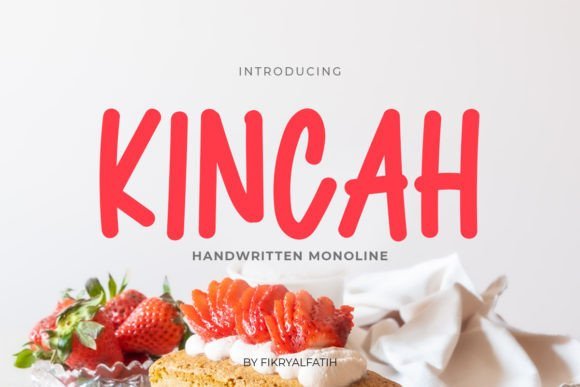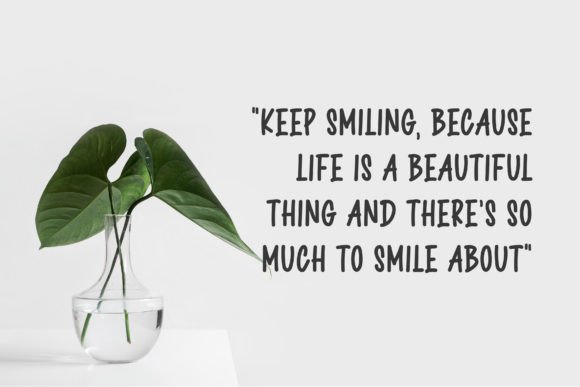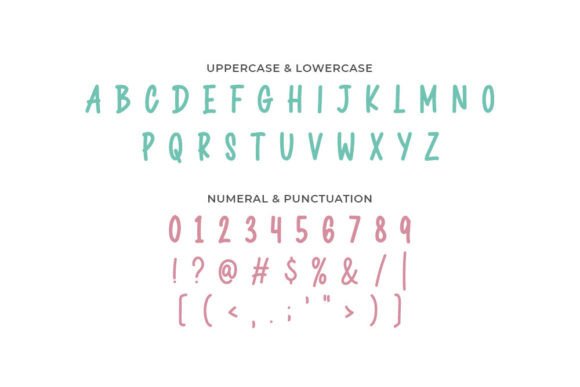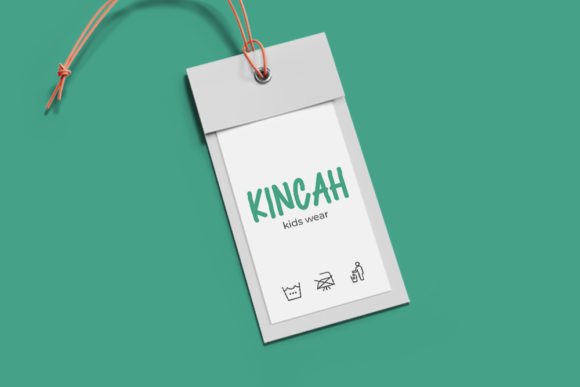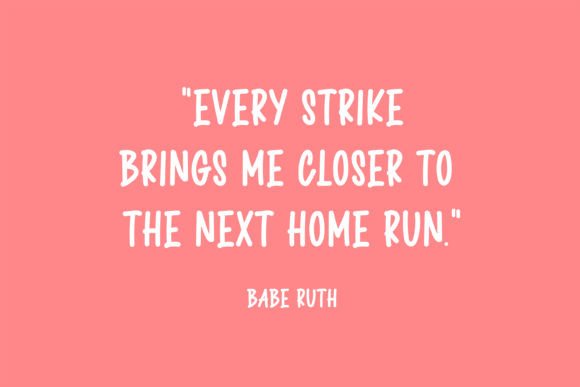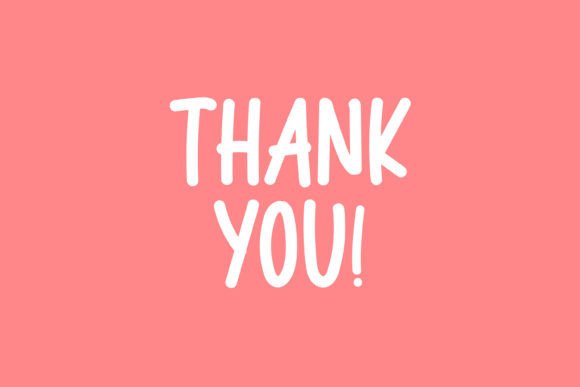
Unleash Your Creativity with the Kincah Font
Have you ever been browsing through a vintage bookstore and stumbled upon an old, handwritten journal? The way the words danced across the page, with each letter uniquely crafted by hand, left you in awe. That’s the magic of handwritten fonts, and it’s exactly what the Kincah Font brings to the table.
The Kincah Font is a beautifully crafted, handwritten monoline font that combines fun and playful glyphs with a luxurious hand-drawn effect. This font is perfect for adding a touch of personality to your designs, from quotes and logo designs to brand image and product packaging.
For designers, the Kincah Font is a valuable addition to their toolkit. Its versatility and unique charm make it an ideal choice for creating eye-catching designs that stand out from the crowd.
Kincah Font Key Features
- Character Set: The font includes a comprehensive character set, covering multiple languages, including Latin, Cyrillic, and Greek scripts.
- Unique Characteristics: Kincah Font features a distinctive, hand-drawn aesthetic, with subtle texture and imperfections that give it a warm, human touch.
- Font Weight and Style: The font includes a range of weights, from Light to Bold, as well as italic and oblique styles, allowing for a high degree of flexibility and customization.
Kincah Font Review
As a designer, I was excited to dive into the Kincah font and see what it had to offer. Here’s my honest take on this font.
- Unique and Creative: Kincah font has a unique and creative feel to it, making it perfect for projects that need a touch of personality.
- Highly Legible: This font is surprisingly legible, even at smaller font sizes, making it ideal for body text and paragraphs.
- Great for Display Text: Kincah font shines when used for display text, headlines, and titles, adding a touch of sophistication to any design.
- Limited Versatility: While Kincah font is great for display text, it may not be the best choice for body text in certain contexts, such as formal or technical writing.
- Lack of Consistency: The font’s irregularities can sometimes make it look inconsistent, especially when used for large blocks of text.
Kincah font is a solid choice for designers looking for a unique and creative font. While it may have some limitations, its strengths far outweigh its weaknesses. With careful use, Kincah font can add a touch of sophistication and personality to any design.
Alternatives to Kincah Font for Designers
Montserrat is a sans-serif typeface that is highly legible and versatile. It is ideal for use in digital media, such as websites, mobile apps, and video games. Montserrat is a great alternative to Kincah Font because it has a similar geometric feel, but with a more modern and sleek appearance.
Open Sans is a clean and modern sans-serif typeface that is highly legible and versatile. It is ideal for use in digital media, such as websites, mobile apps, and video games. Open Sans is a great alternative to Kincah Font because it has a similar friendly and approachable feel, but with a more refined and sophisticated appearance.
Avenir is a geometric sans-serif typeface that is highly legible and versatile. It is ideal for use in digital media, such as websites, mobile apps, and video games. Avenir is a great alternative to Kincah Font because it has a similar modern and sleek appearance, but with a more angular and geometric feel.
Inter is a modern sans-serif typeface that is highly legible and versatile. It is ideal for use in digital media, such as websites, mobile apps, and video games. Inter is a great alternative to Kincah Font because it has a similar clean and minimalistic appearance, but with a more sophisticated and refined feel.
Q: What is the character set of Kincah Font?
Kincah Font includes a comprehensive character set that covers Latin, Cyrillic, and Greek alphabets, as well as a range of punctuation and symbol characters. The font also includes support for Unicode characters up to U+10FFFF, ensuring compatibility with a wide range of languages and applications.